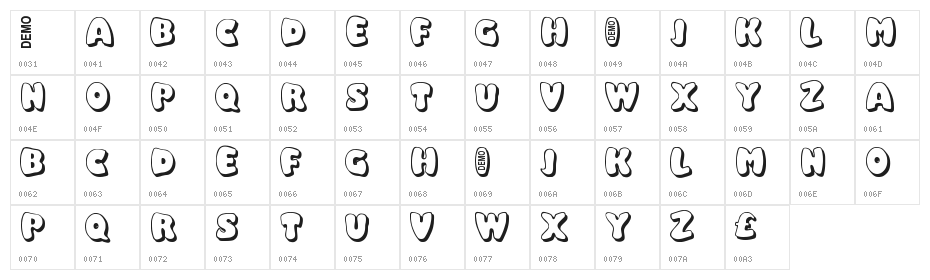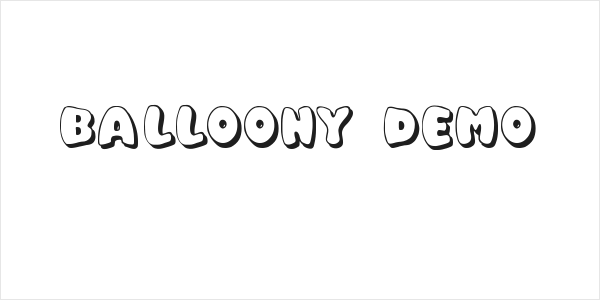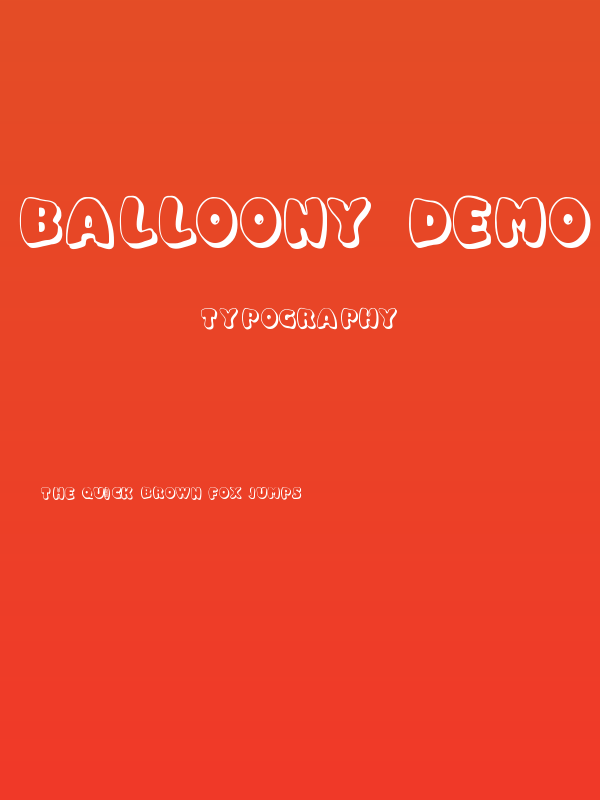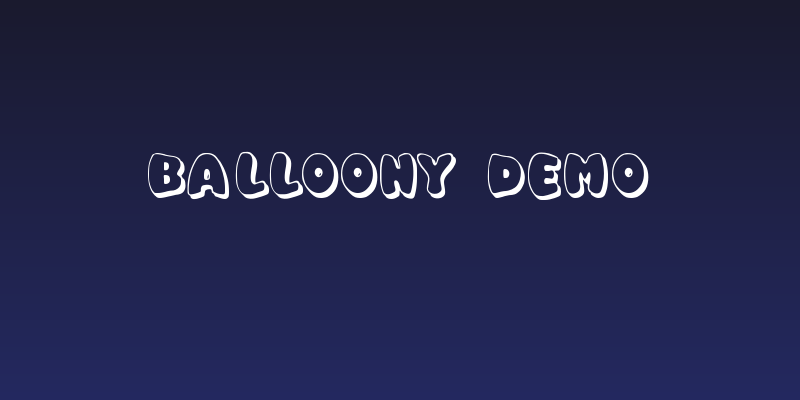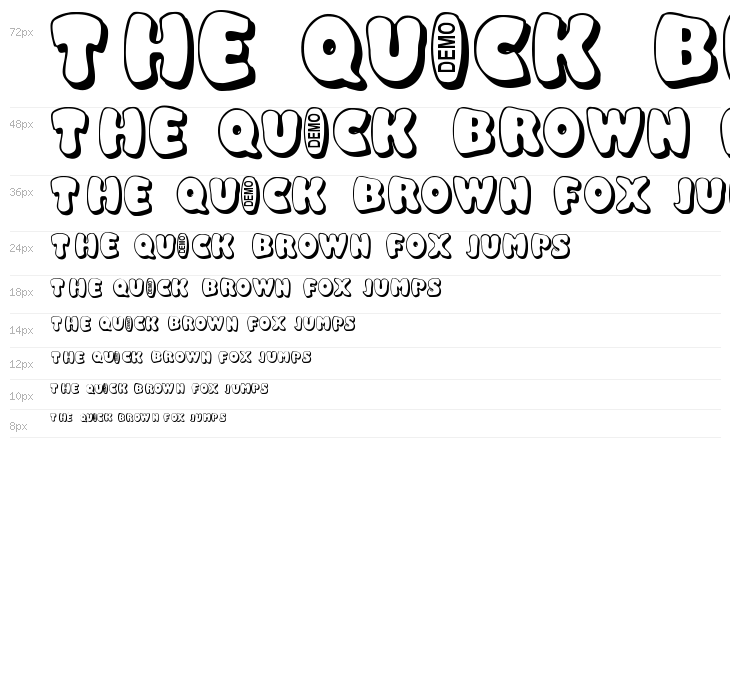
Balloony Demo Font
Balloony Demo Description
This playful and whimsical font features bold, rounded characters that resemble inflated balloons. The letters are evenly spaced and have a consistent thickness, giving them a uniform appearance. The style is distinctly decorative, making it ideal for fun and lighthearted projects. The uppercase letters are prominent and eye-catching, while the lowercase letters maintain the same bubbly aesthetic. The font's unique design is perfect for capturing attention and conveying a sense of joy and celebration.
| Proposed Projects | Ideal for children's party invitations, playful branding, greeting cards, and festive event posters. |